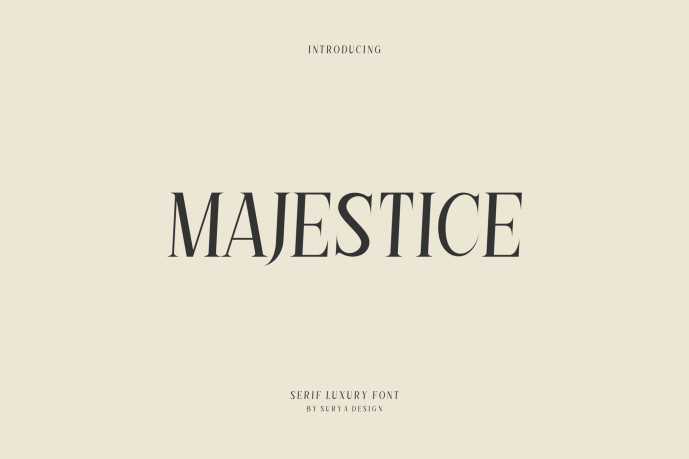
Majestice Serif Luxury Font
Designer: suryadesign0
Introducing our new product Majestice Font – Modern Font
Majestice Font– Modern Font is a bold and authentic display font. The font is suitable for any branding project like logo, esport, and many more. outstanding in a wide range of contexts.